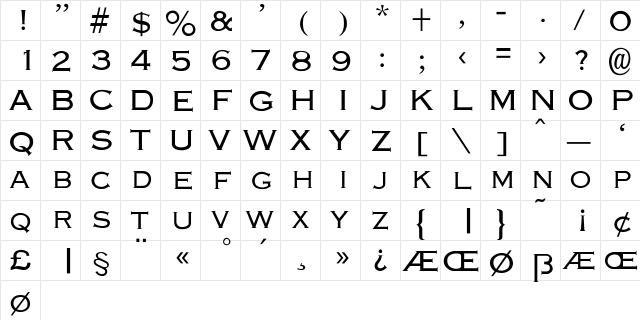
Endsaver-Light Regular
Design Context for Endsaver-Light Typeface
Endsaver-Light takes a measured approach to typography — its balanced proportions and neutral character make it a reliable workhorse for both digital and print work. Its slender proportions lend an understated elegance to any composition.
Pro Tip: Use Endsaver-Light in both headline and body roles to test its range before committing to a single application.